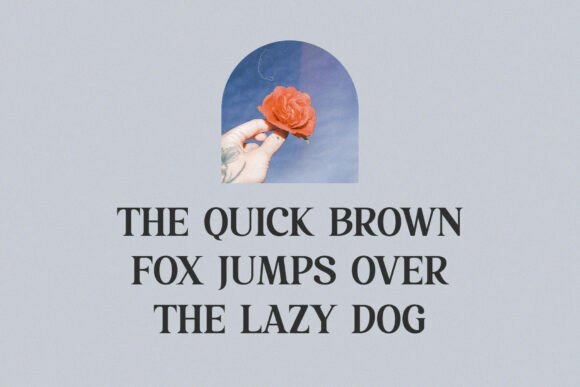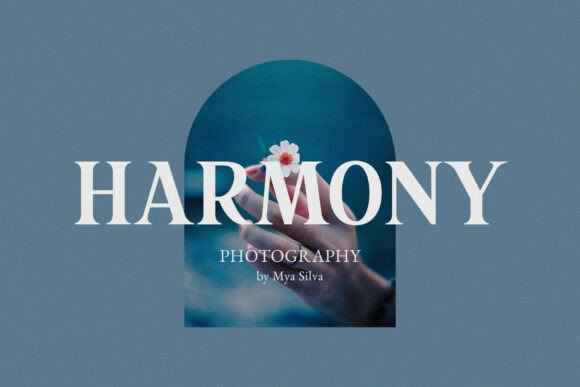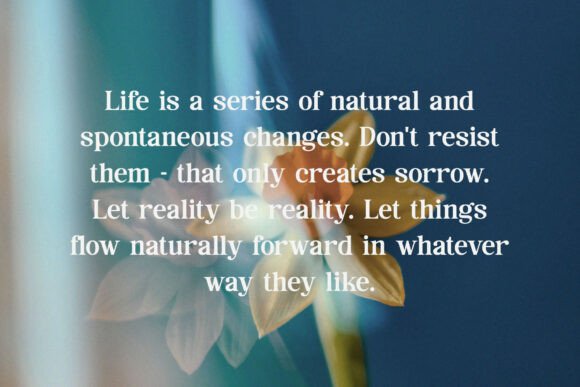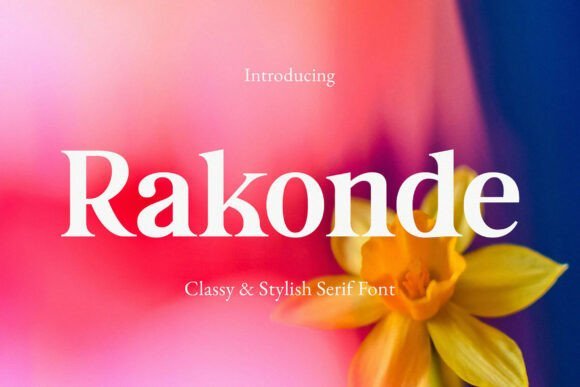
Introduction to Rakonde Font
Rakonde is a stylish, luxurious serif font that exudes sophistication and timeless elegance.
With refined curves and sharp details, it’s ideal for high-end branding, editorials, and packaging The classic structure paired with modern flair creates a distinguished presence that elevates any visual presentation with grace.